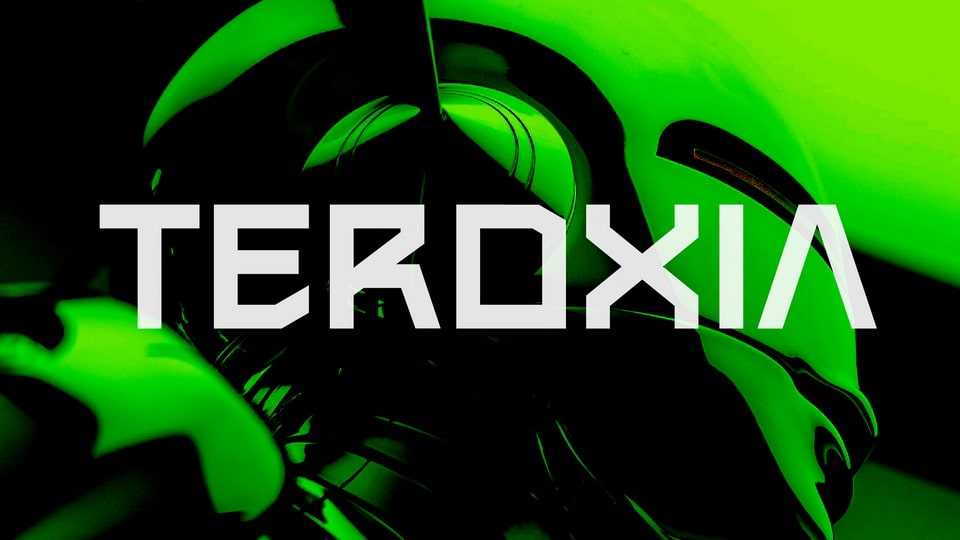
Download Teroxia font, a display typeface that is inspired by the shape and characteristics of the curves and constructions that exist in robots or machines. Teroxia font is made with a modern touch and a more futuristic and strong form.